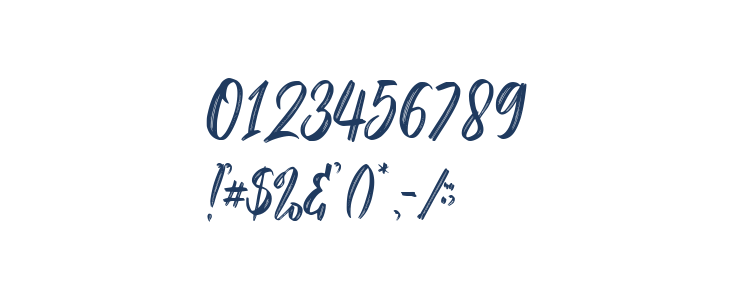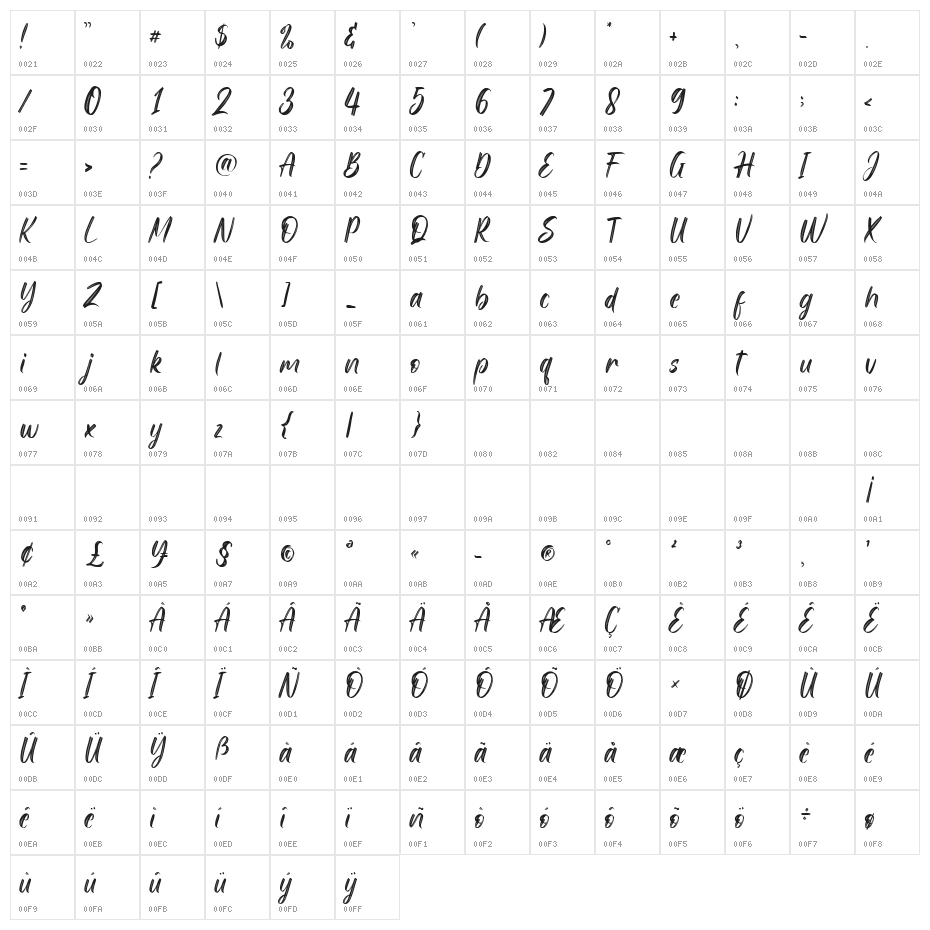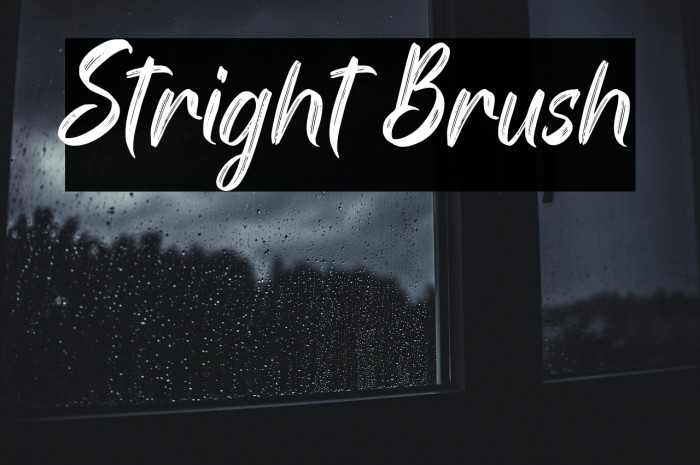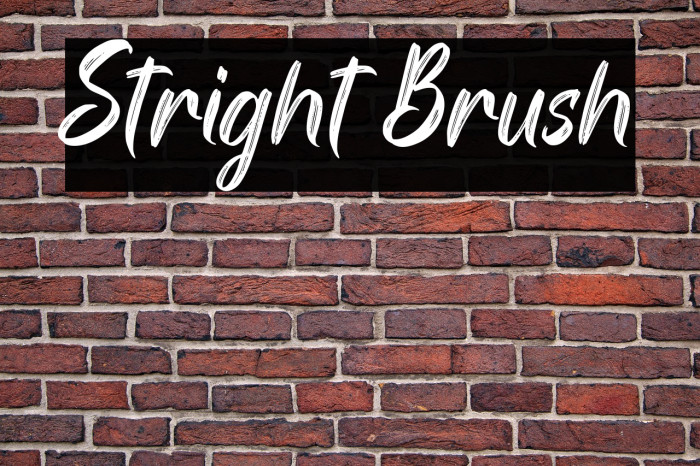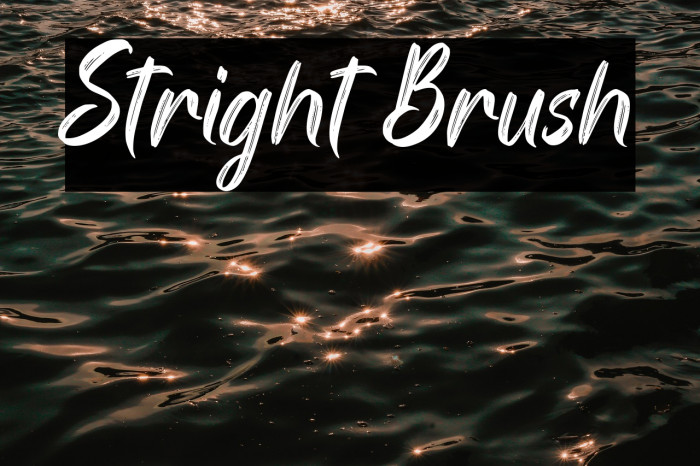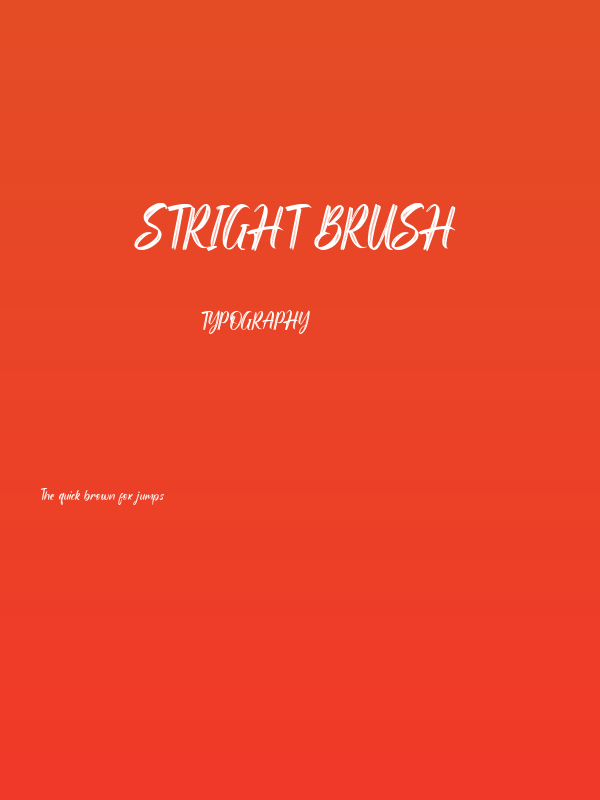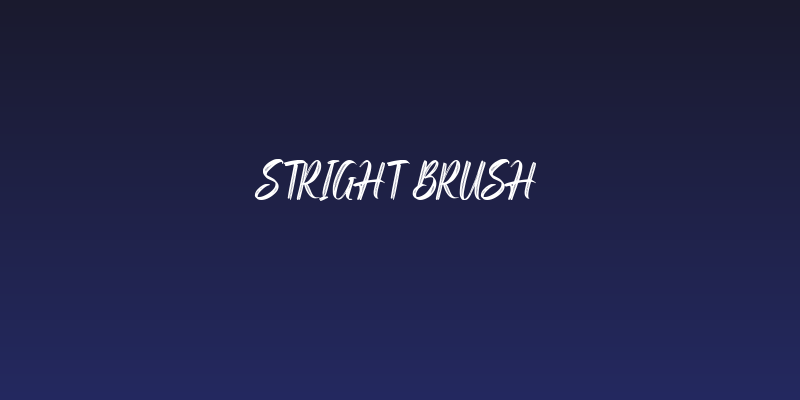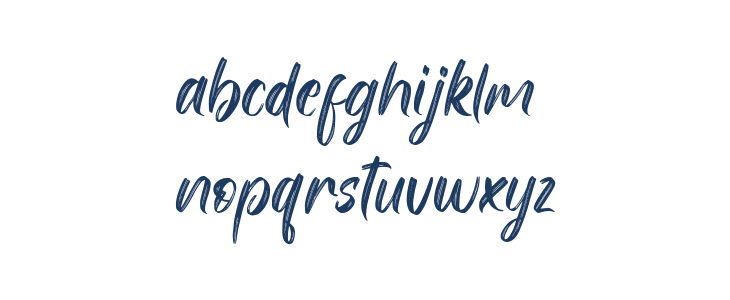
Stright Brush Font
Stright Brush Description
This font exhibits a dynamic and energetic brush script style, characterized by its flowing, cursive letterforms that mimic the strokes of a brush. The uppercase letters are bold and expressive, with a slight slant that adds to the sense of movement. The lowercase letters maintain a consistent style, offering a harmonious blend with the uppercase. The numbers and special characters follow the same aesthetic, ensuring a cohesive look across all elements. The strokes vary in thickness, providing a medium contrast that enhances readability while maintaining the artistic flair. This font is ideal for projects that require a personal and creative touch, such as invitations, posters, and branding materials.